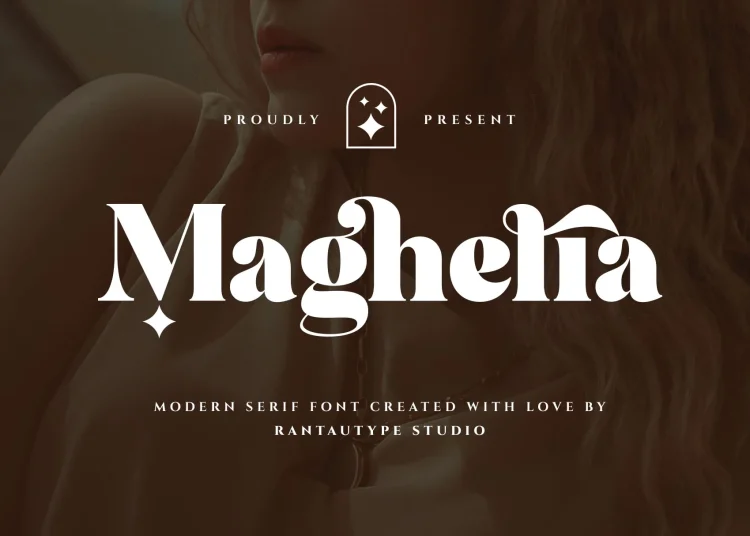
Maghelia Font
Maghelia is a sophisticated modern serif font that offers a perfect blend of elegance and versatility, making it an ideal choice for a wide range of design projects. With beautifully crafted upper and lowercase characters, as well as a complementary italic version, Maghelia stands out with its unique ligatures that add a distinctive touch to any brand or design. Whether you’re working on logos, titles, or watermarks on photography, this font ensures that your work exudes a chic and stylish aesthetic.
Designed to meet the needs of various creative endeavors, Maghelia is well-suited for lifestyle designs, branding, displays, magazines, and even wedding events. Its elegant form is equally at home in quotes, album covers, business cards, and other design projects that require a refined and polished look. The font’s versatility is further enhanced by its extensive character set, which includes standard letters, numerals, and functional symbols, as well as alternate and ligature options that allow for personalized and creative typographic expressions.